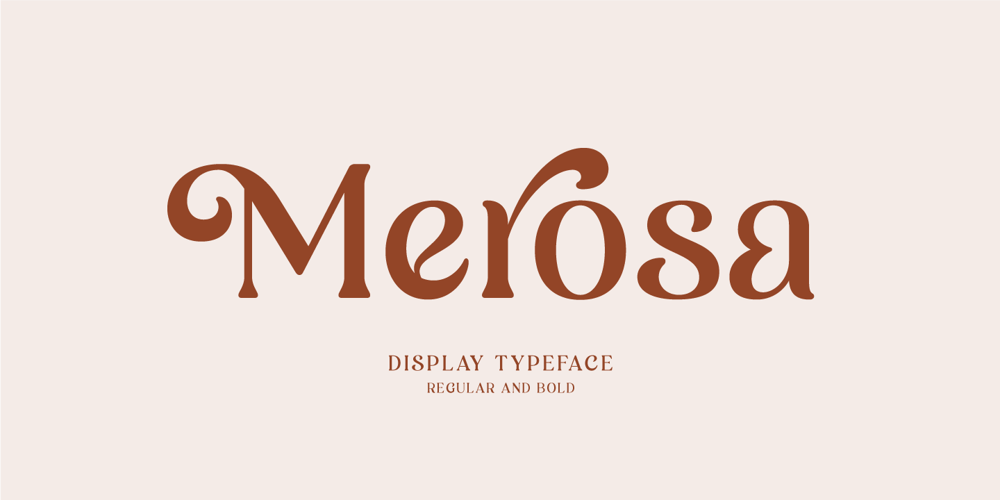
Merosa Font Family was designed by Akhmad Reza Fauzi and published by Grezline Studio. Merosa contains 2 styles and family package options. Merosa is an experimental display serif font that I crafted for fashion design. You can also use this font for other purposes such as logos, labels, invitations, magazines, books, greeting/wedding cards, packaging, stationery, novels, labels, any type of advertising and etc. Feature :- Alternates and Ligatures- Multilingual Language- Works on PC & Mac- Simple installations- Accessible in Adobe Illustrator, Adobe Photoshop, and Adobe InDesign, and even works on Microsoft Word.We highly recommend using a program that supports OpenType features and Glyphs panels like many Adobe apps and Corel Draw, so you can see and access all Glyph variations.Thank You!